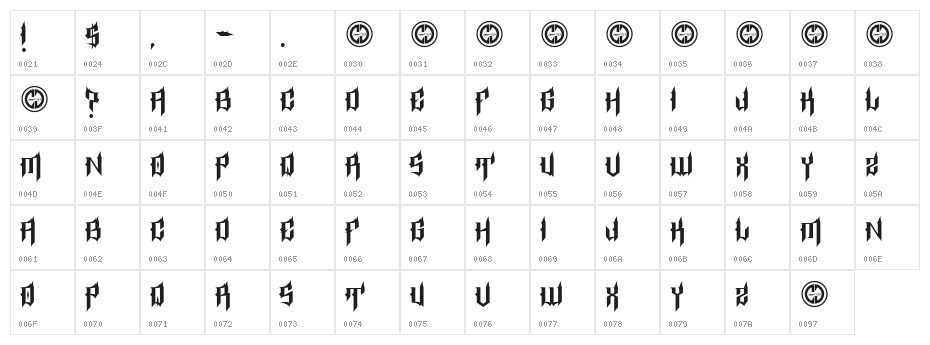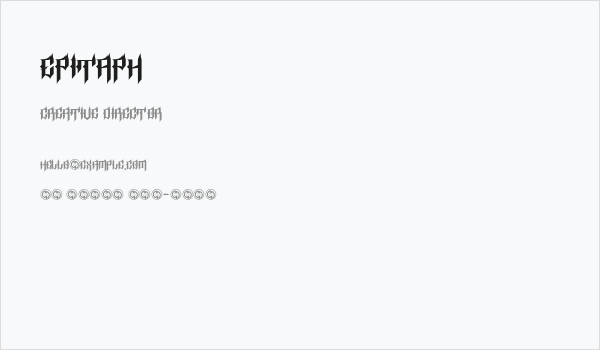
Epitaph Font
Epitaph Description
This font exhibits a bold and striking Gothic style, characterized by sharp, angular lines and a dramatic presence. The uppercase letters are particularly elaborate, with intricate details that evoke a sense of historical gravitas. The lowercase letters maintain the same angular aesthetic, ensuring consistency throughout the typeface. The numbers and special characters are designed to complement the overall style, adding to the font's cohesive appearance. This font is reminiscent of medieval scripts, making it ideal for projects that require a touch of antiquity and elegance.
Overall StyleVintage
Use CaseLogos, Headlines, Decorative elements
Proposed ProjectsIdeal for historical themed designs, book covers, posters, and branding that requires a medieval or Gothic touch.